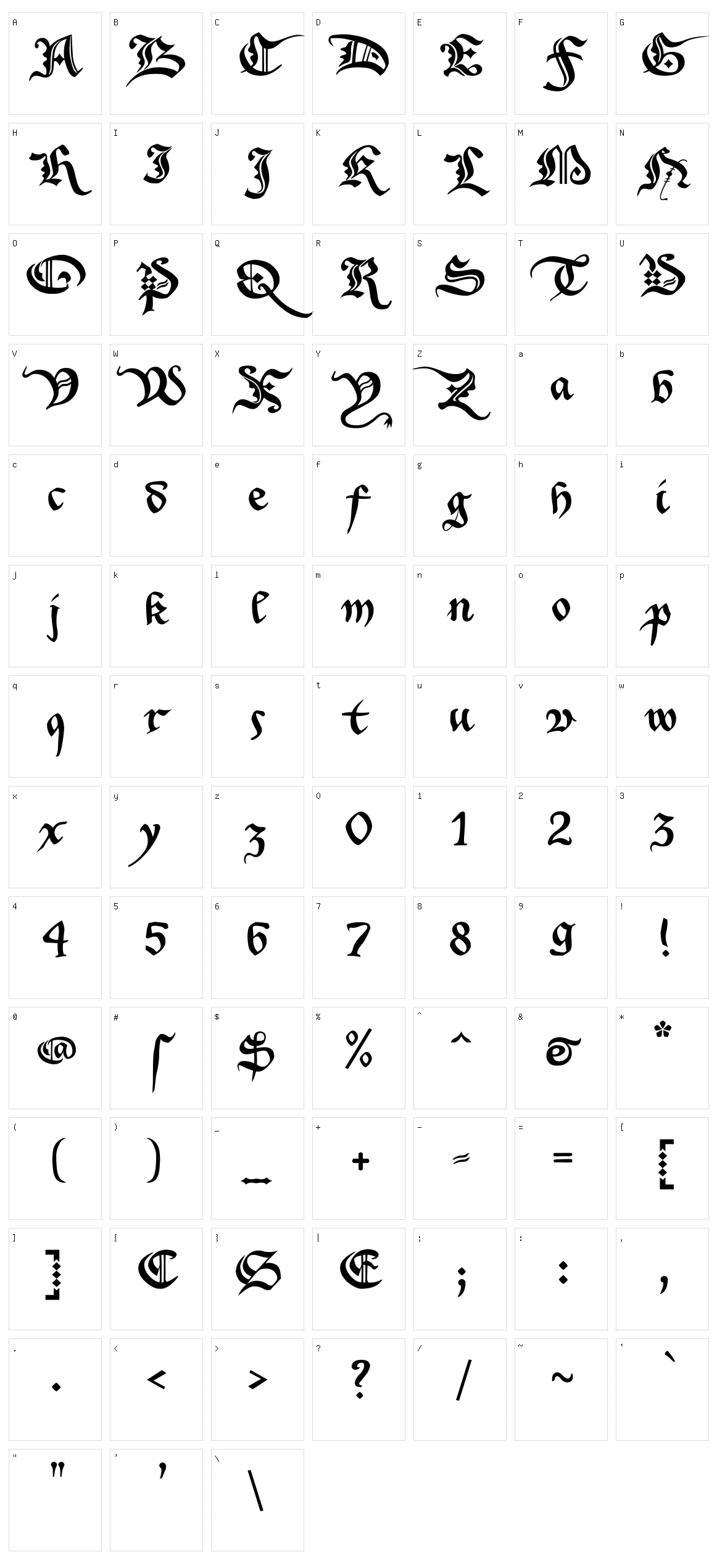
Xenippa
Designed by: Pia Frauss
Category: Medieval & Gothic
Xenippa 1.1
-- created by Pia Frauss in 2003, with High Logic's FontCreator Program; updated in 2005 --
Based on French Bastarda writing and some -- freely handled -- Rotunda capitals, this font has no match in historic documents. It's a first try to combine imitation and imagination.
There is no number sign in this font. In its place, you'll find a long s. Equally, you'll find alternatives in other places:
- another C instead of the left curly bracket
- another E instead of the bar sign
- another G instead of the right curly bracket
- as well as st and et joined by means of a flourish on the fi and fl keys.
This font contains some attempts at kerning, especially the pp.